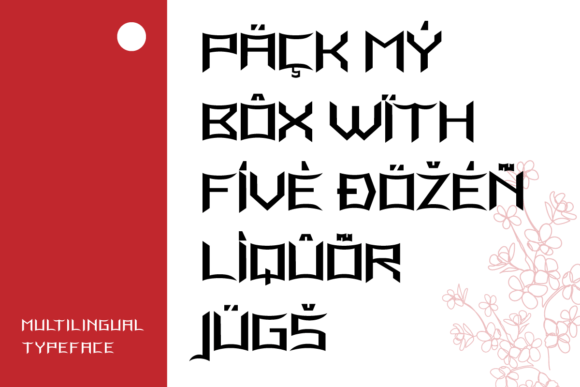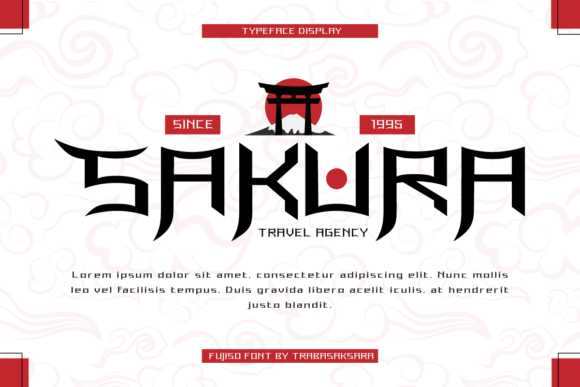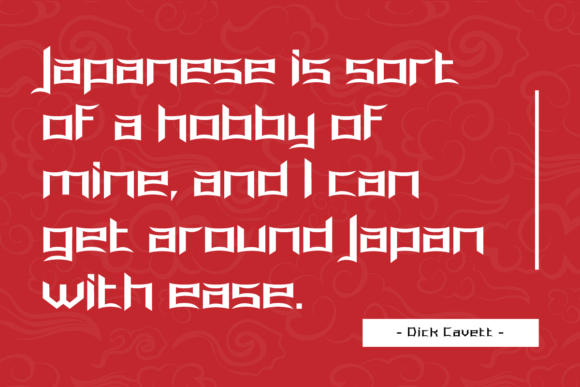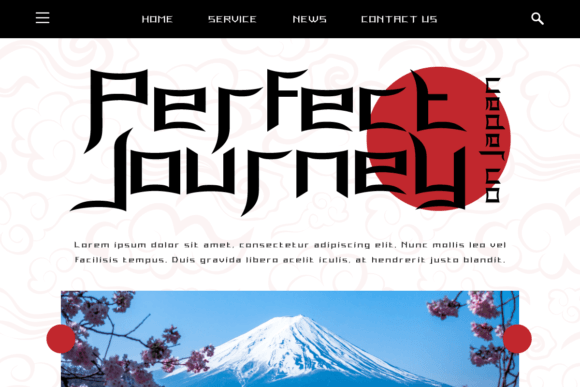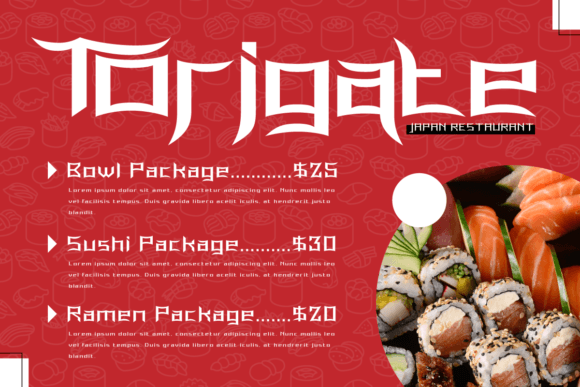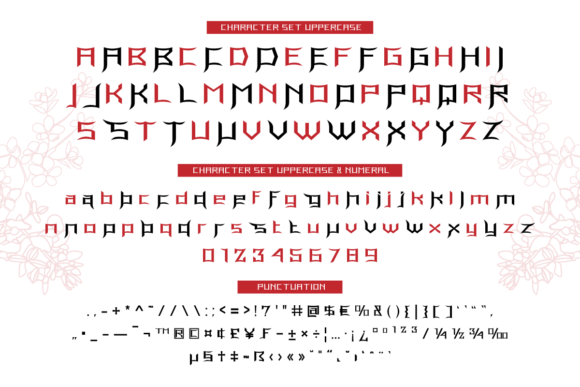
Introducing Fujiso Font – The Perfect Blend of Elegance and Versatility
In the world of design, typography plays a crucial role in conveying a message, expressing a brand’s identity, and capturing the audience’s attention. With numerous fonts available, finding the perfect one that balances elegance and versatility can be a daunting task. However, we are excited to introduce you to Fujiso Font, a sleek and modern font that is poised to revolutionize your design projects.
The Unique Characteristics of Fujiso Font
Fujiso font boasts clean lines, bold strokes, and unique character shapes that set it apart from other fonts. Its sleek design makes it perfect for creating attention-grabbing headlines, eye-catching logos, and stunning visual content. The font’s elegance and sophistication are evident in its precise lines and curves, making it an excellent choice for designers and crafters seeking to add a touch of refinement to their work.
Why Choose Fujiso Font?
So, what makes Fujiso font an ideal choice for designers and crafters? Here are a few reasons why you should consider adding it to your typography arsenal:
• Versatility: Fujiso font is incredibly versatile, making it suitable for a wide range of design projects, from websites and marketing campaigns to branding and advertising materials.
• Elegance: The font’s sleek design and precise lines exude elegance and sophistication, making it perfect for designers seeking to create high-end visual content.
• Unique Character Shapes: Fujiso font’s unique character shapes add a touch of personality to your designs, setting them apart from others and making them more memorable.
• Attention-Grabbing: The font’s bold strokes and clean lines make it perfect for creating attention-grabbing headlines and eye-catching logos that capture the audience’s attention.
Applications of Fujiso Font
Fujiso font is an excellent choice for various design projects, including:
• Web Design: Use Fujiso font to create stunning website headers, titles, and captions that capture your audience’s attention and leave a lasting impression.
• Marketing Campaigns: The font’s bold and elegant design makes it perfect for creating eye-catching marketing materials, such as brochures, flyers, and posters.
• Branding and Advertising: Fujiso font is an excellent choice for creating logos, business cards, and other branding materials that require a touch of sophistication and elegance.
Tips for Using Fujiso Font Effectively
To get the most out of Fujiso font, here are a few tips to keep in mind:
• Pair it with Other Fonts: Experiment with pairing Fujiso font with other fonts to create a unique and visually appealing typography combination.
• Use it for Headlines: The font’s bold strokes and clean lines make it perfect for creating attention-grabbing headlines that capture the audience’s attention.
• Adjust Font Size and Color: Experiment with different font sizes and colors to create visual hierarchy and add depth to your designs.
In conclusion, Fujiso font is a game-changer for designers and crafters seeking to add a touch of elegance and versatility to their design projects. With its unique character shapes, bold strokes, and clean lines, this font is perfect for creating attention-grabbing headlines, eye-catching logos, and stunning visual content. Whether you’re designing a website, creating a marketing campaign, or working on a branding project, Fujiso font is sure to make a lasting impression on your audience. Try it out today and experience the difference it can make!